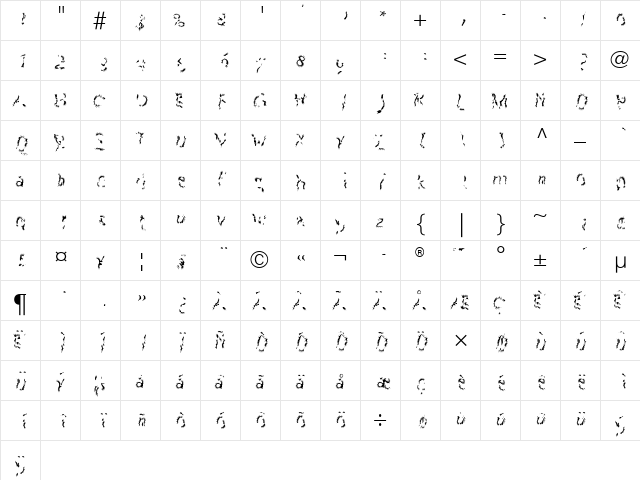
SchwennelNegroLL Medium
Design Context for SchwennelNegroLL Typeface
SchwennelNegroLL is a composed and adaptable typeface that performs quietly and consistently across a wide range of design contexts.